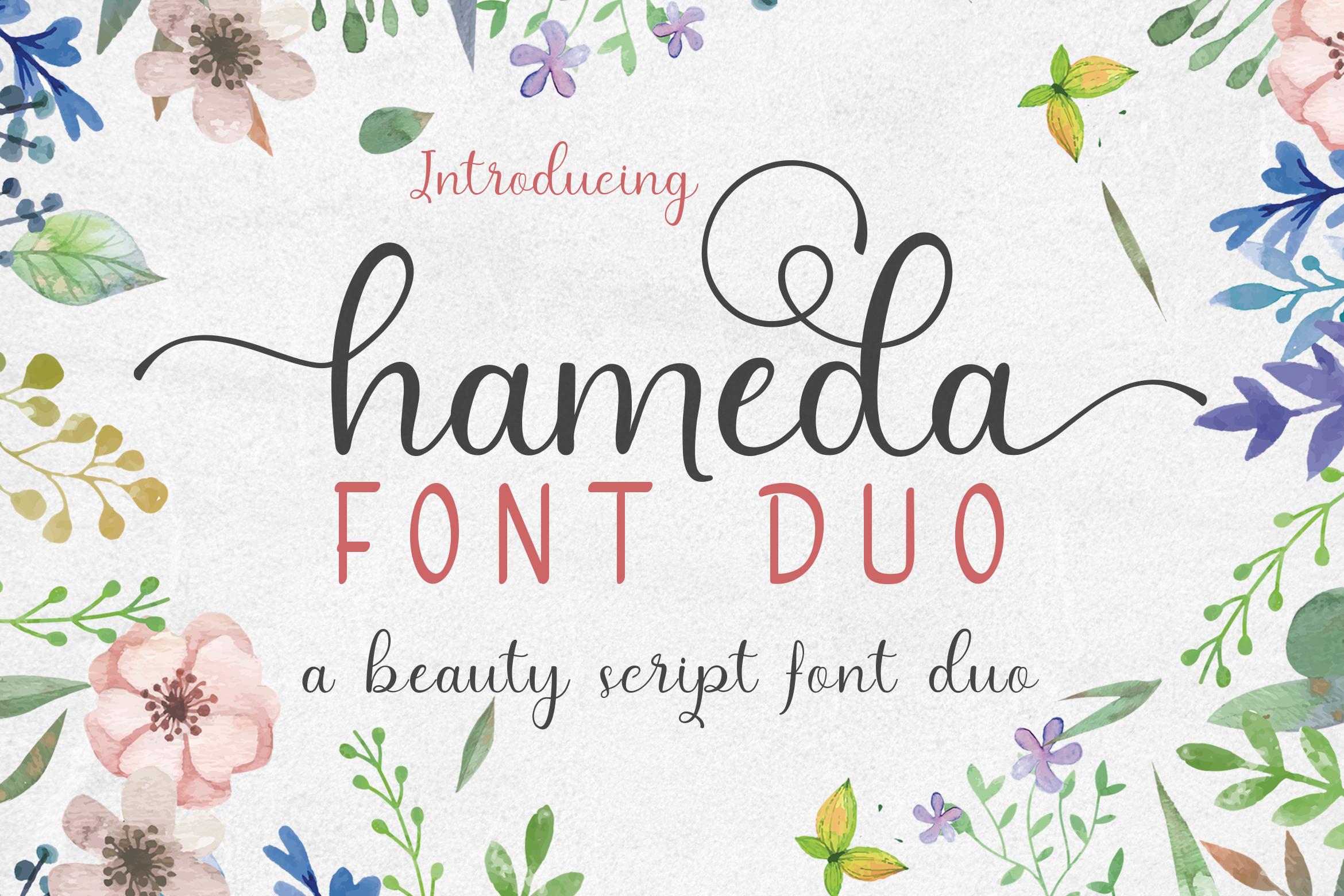
Hameda Font Description
Hameda is a spectacular duo font (sans serif and script). Incredibly versatile, this font fits a wide pool of designs, elevating them to the highest levels. Add this font to your favorite creative ideas and notice how it makes them come alive!